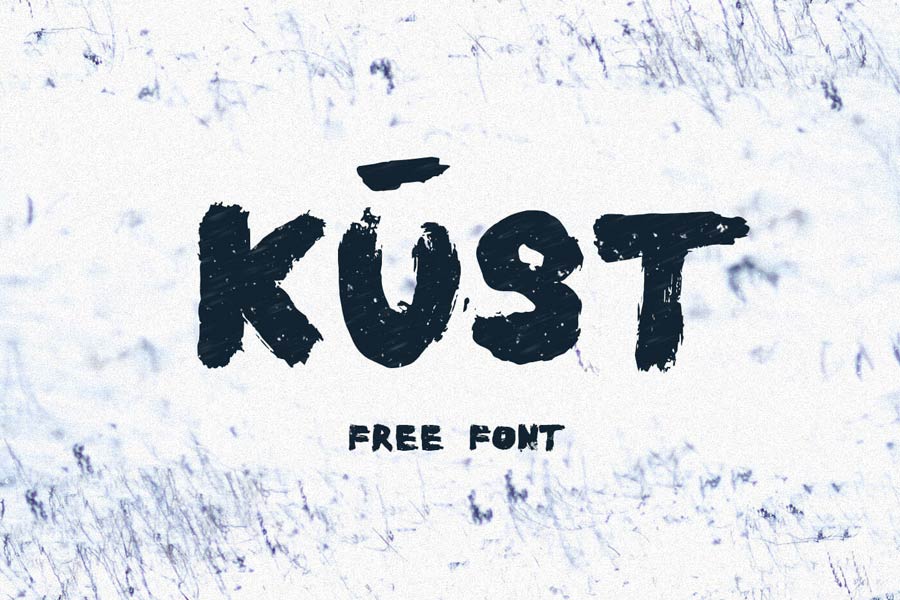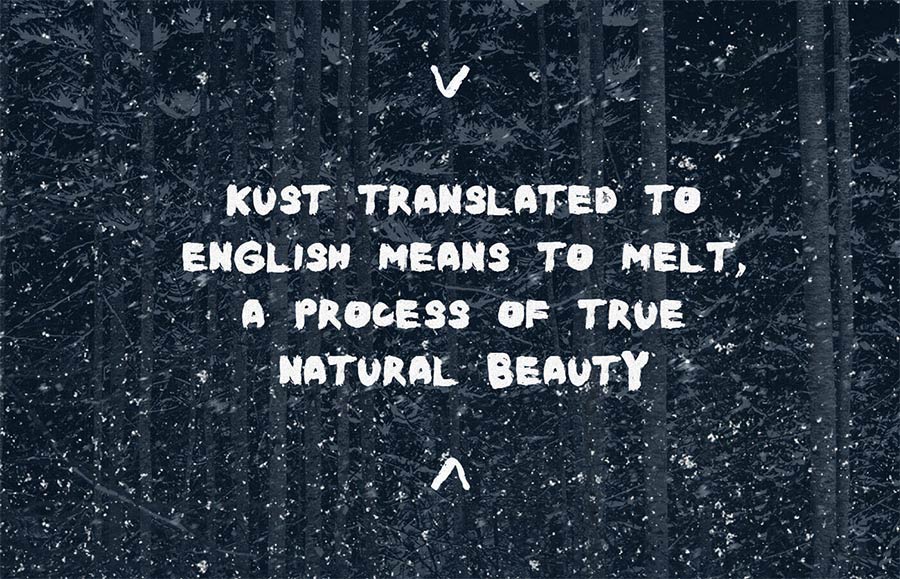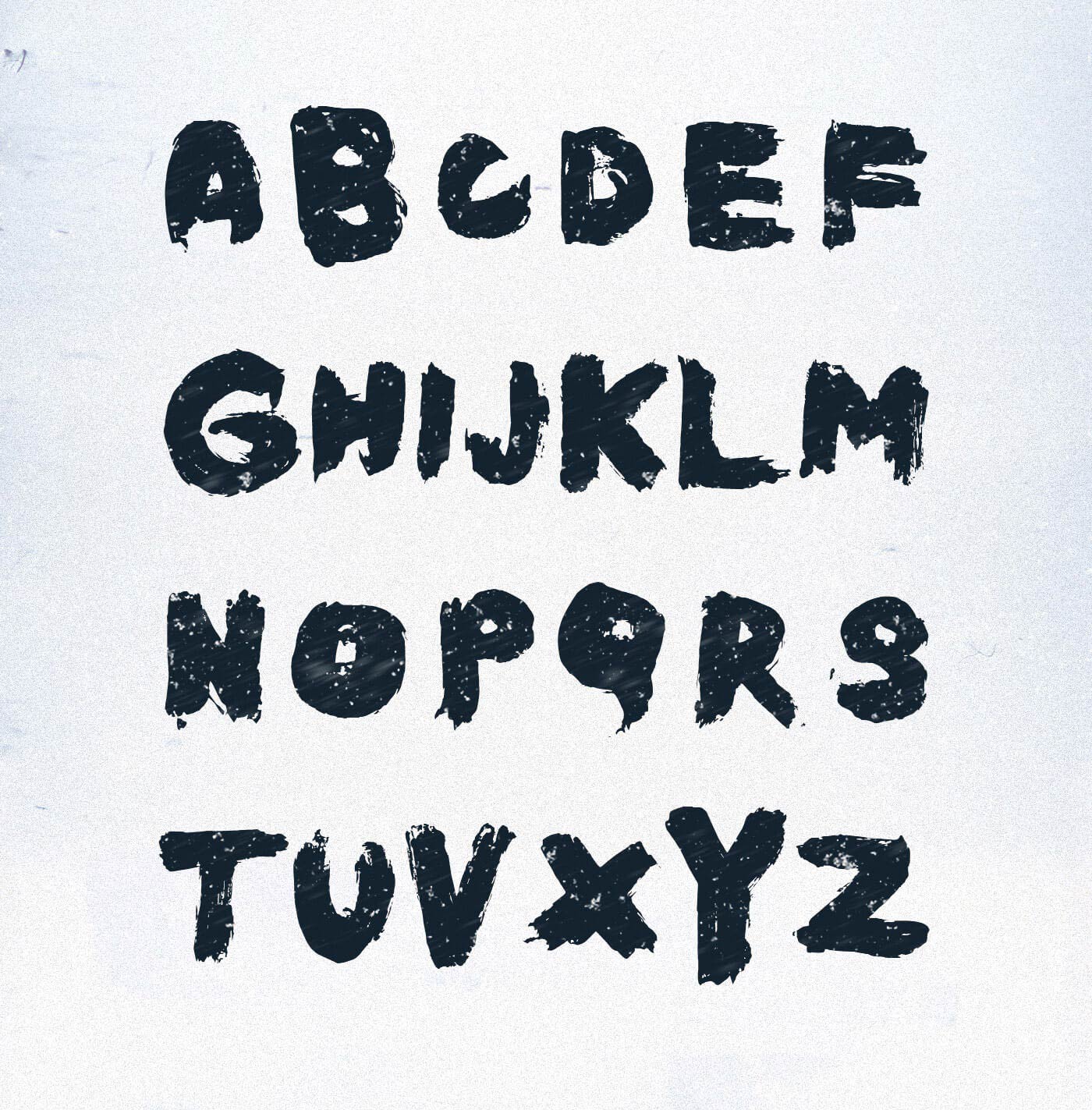
KUST is a free frush font originated from Latvia and it means “to melt” in Latvian. The letters of KUST were drawn on hard paper with a thick brush using pure black ink. Each letters in KUST are unique on its own. This font is available for commercial projects and web font formats are available too.
- Designer: Ieva Mezule
- Category: Calligraphy/Brush, Web Font